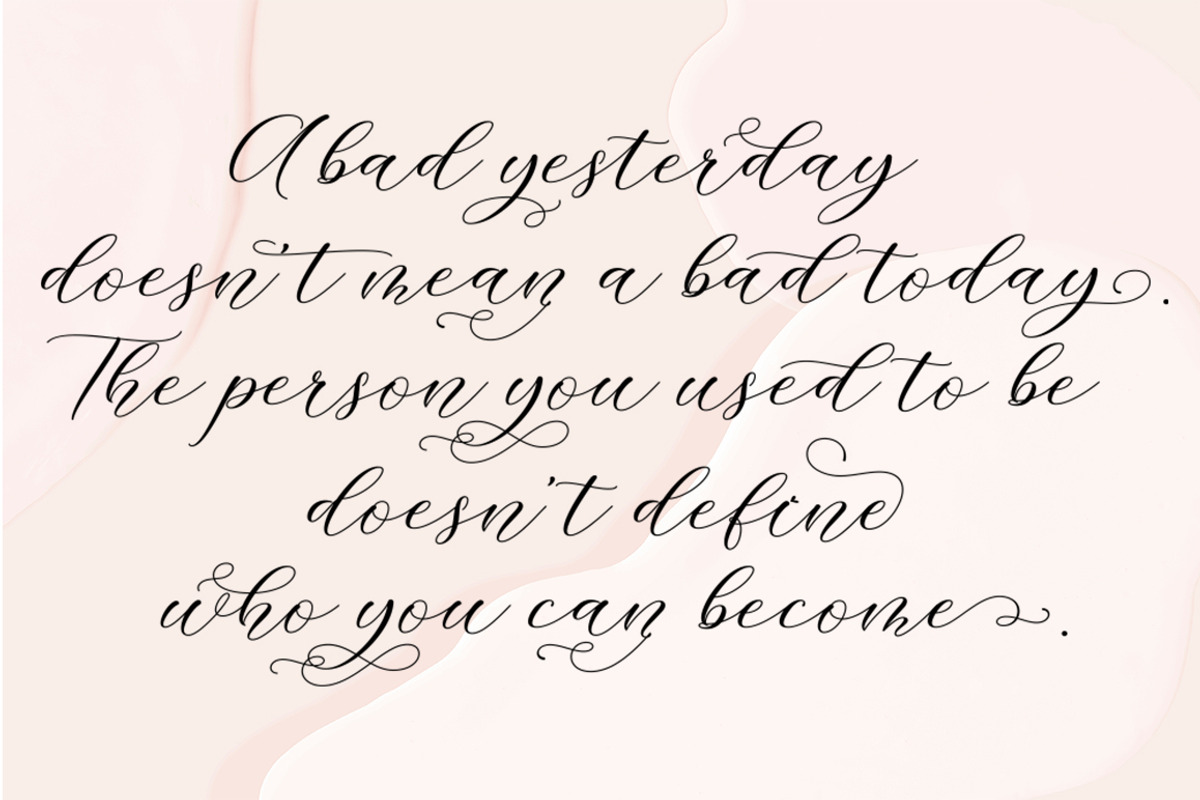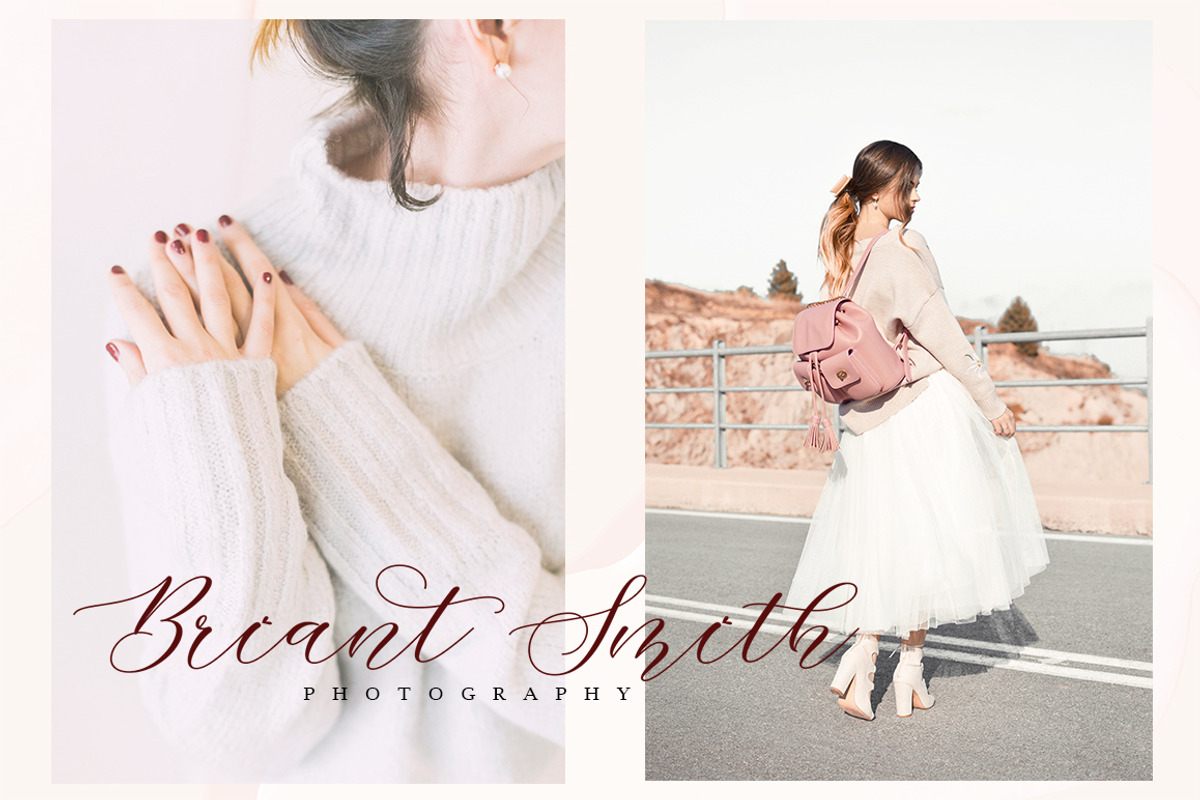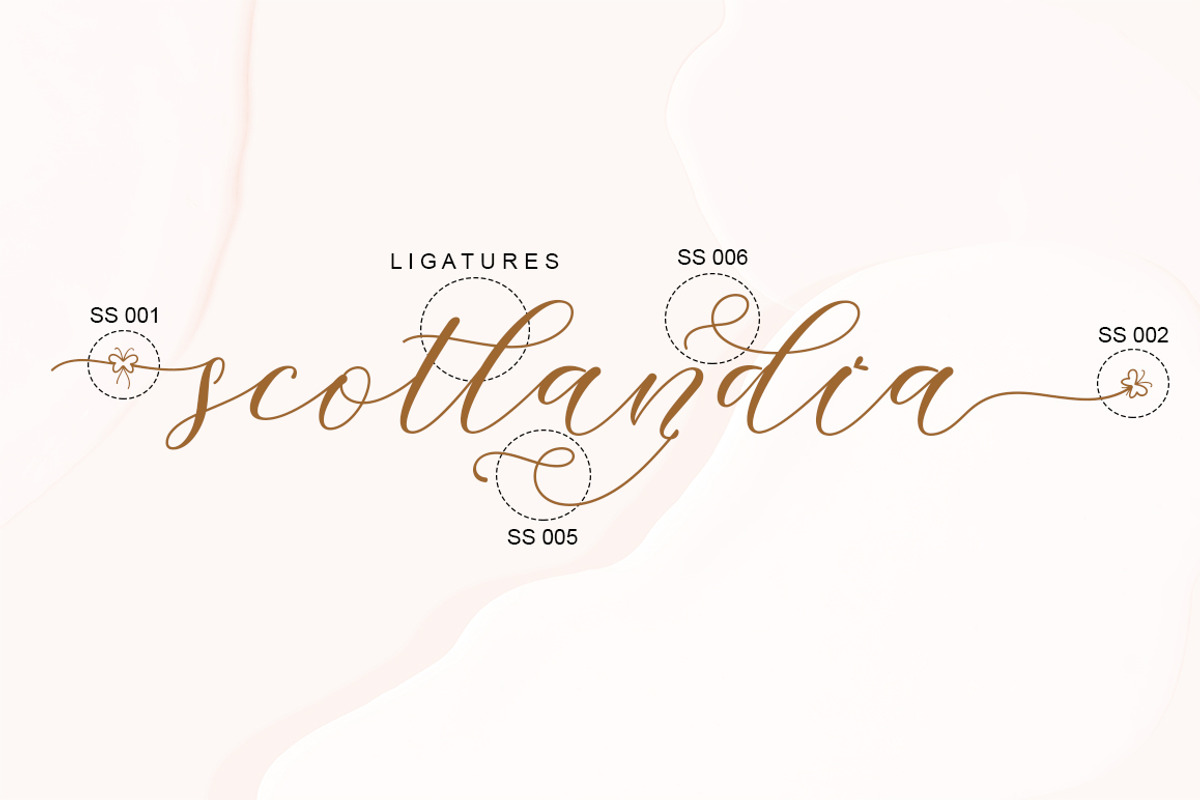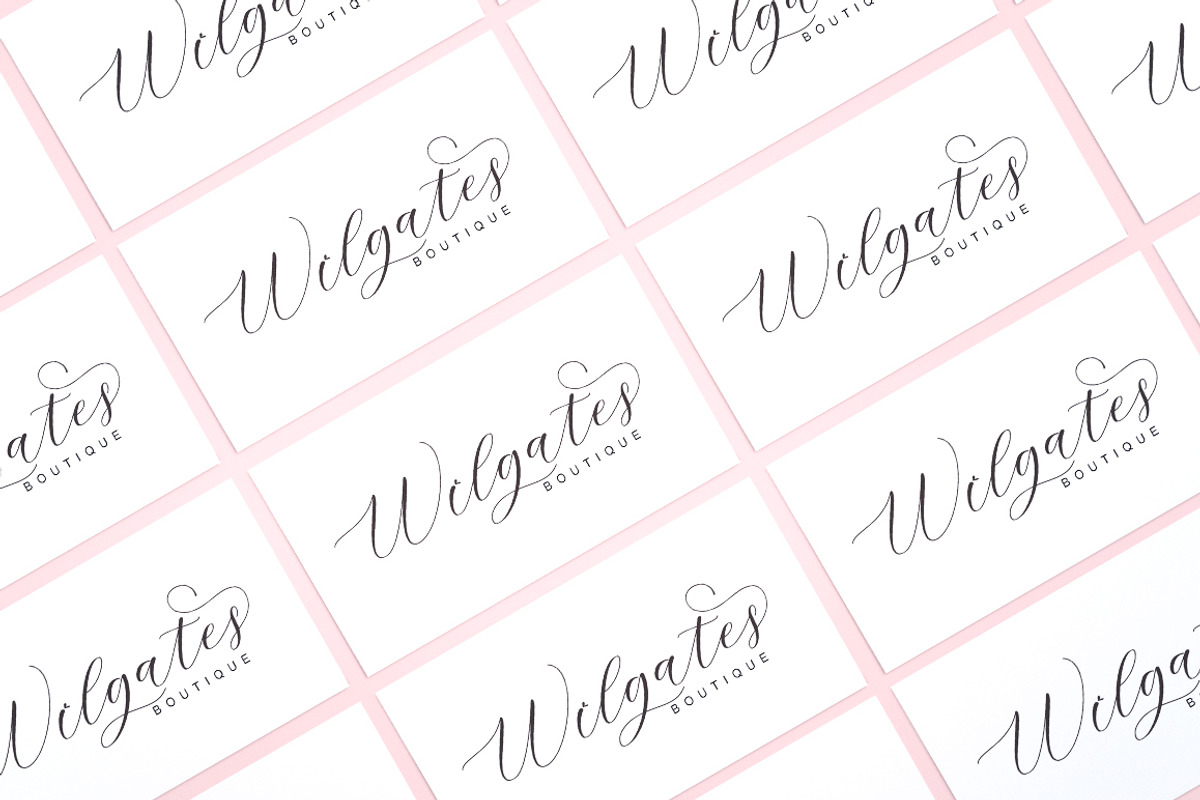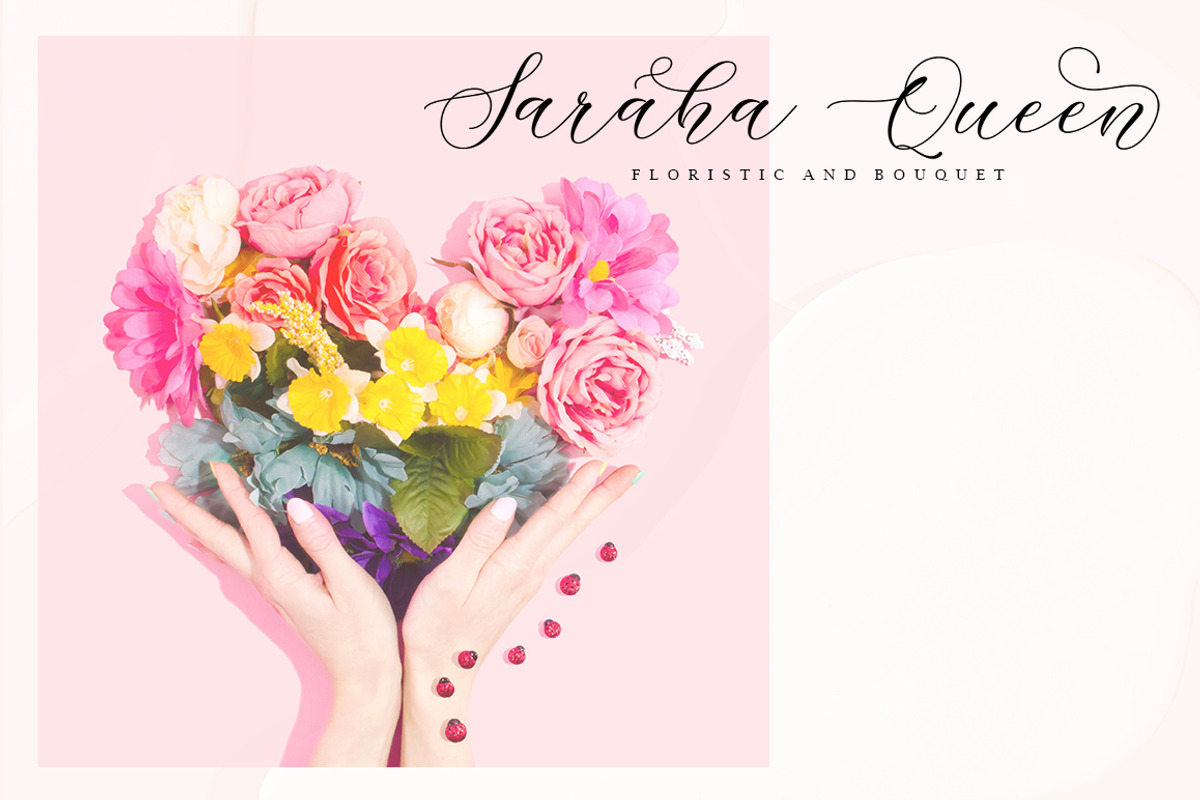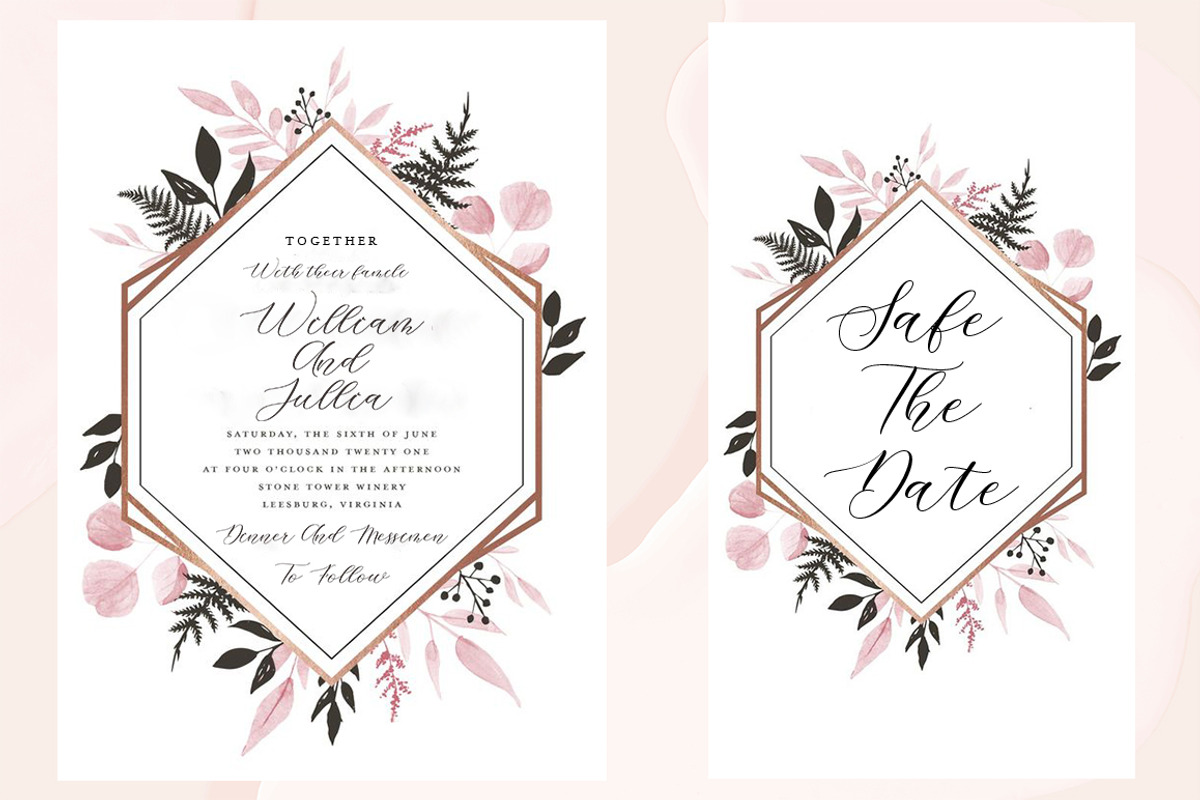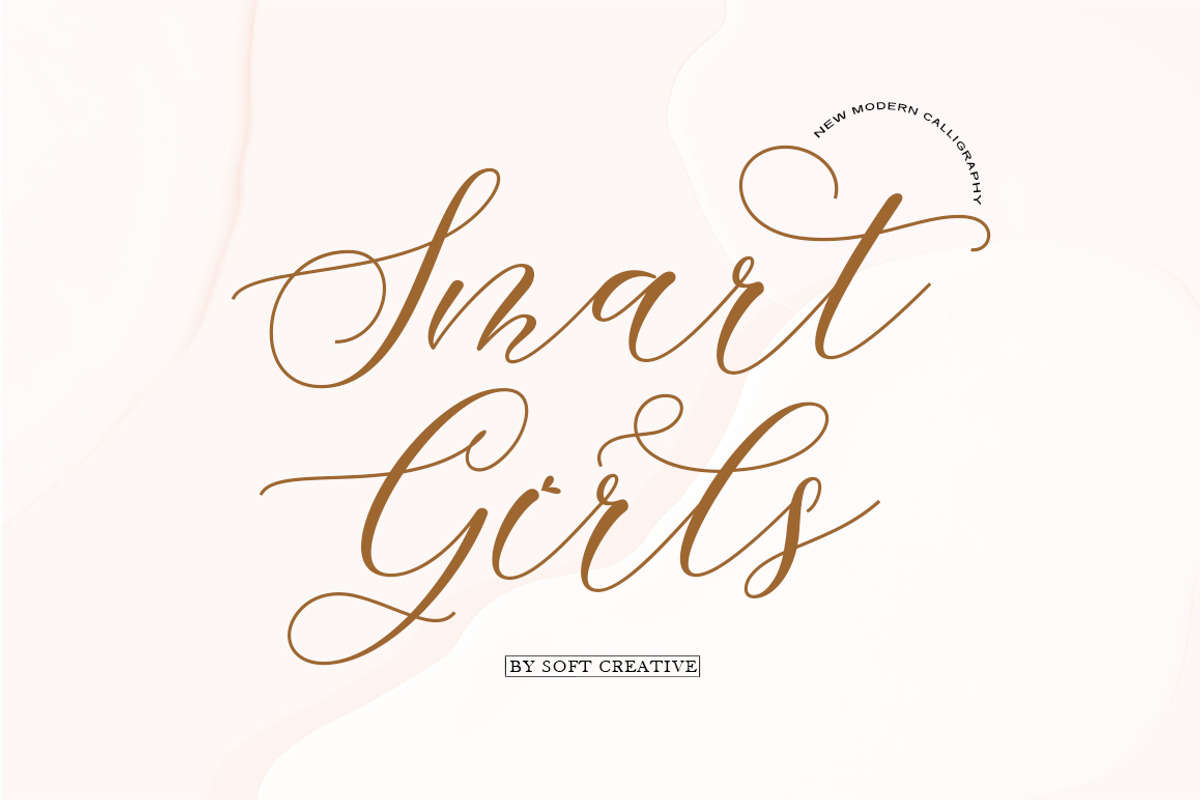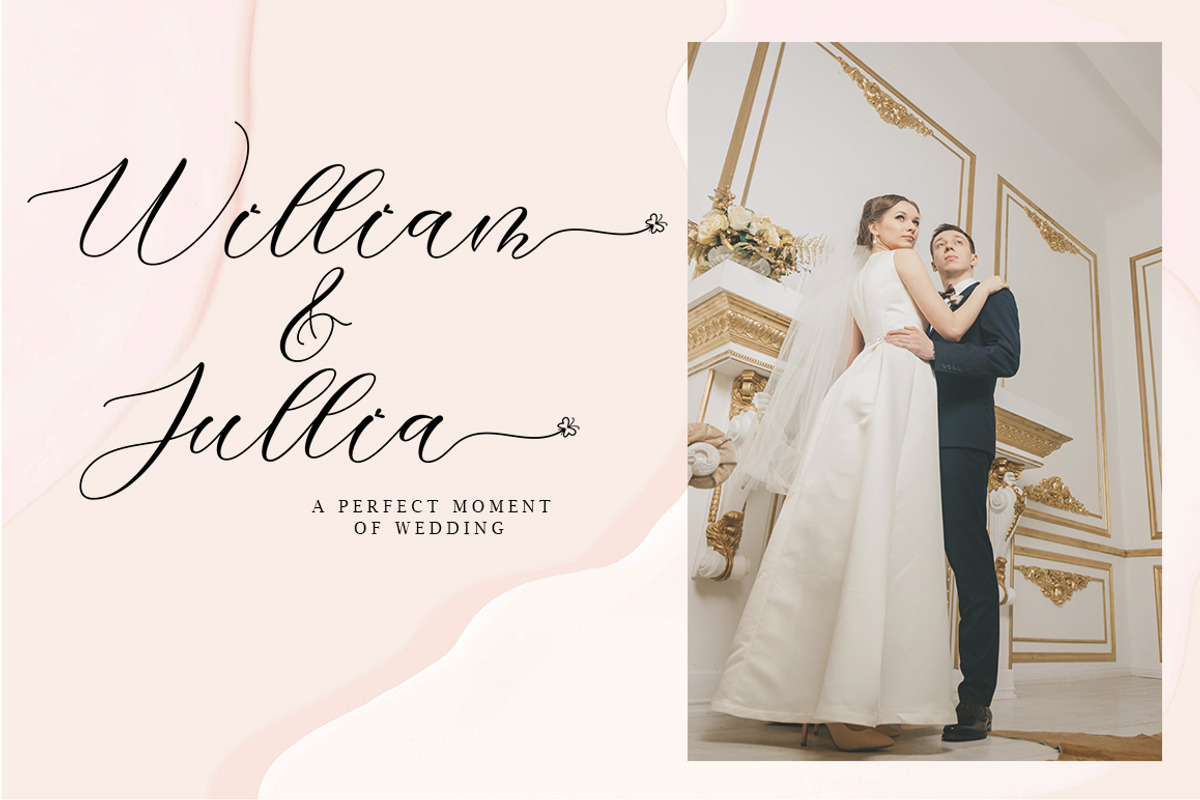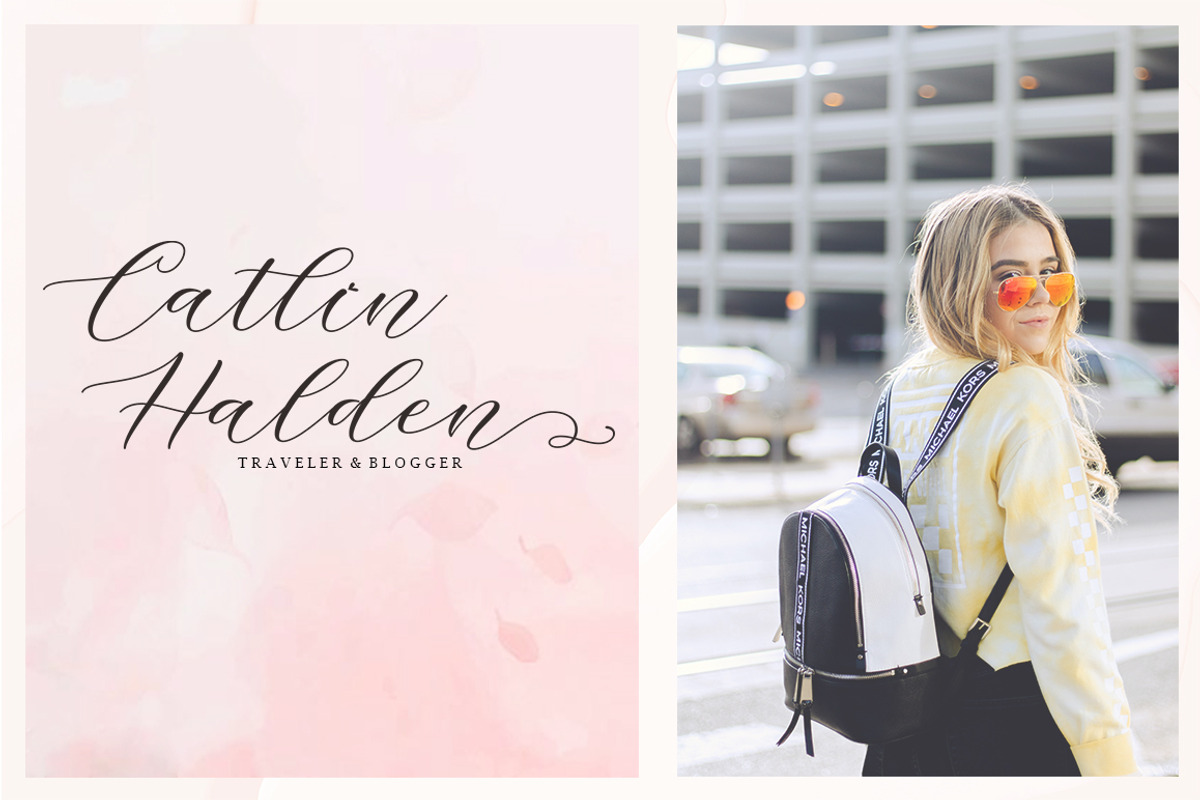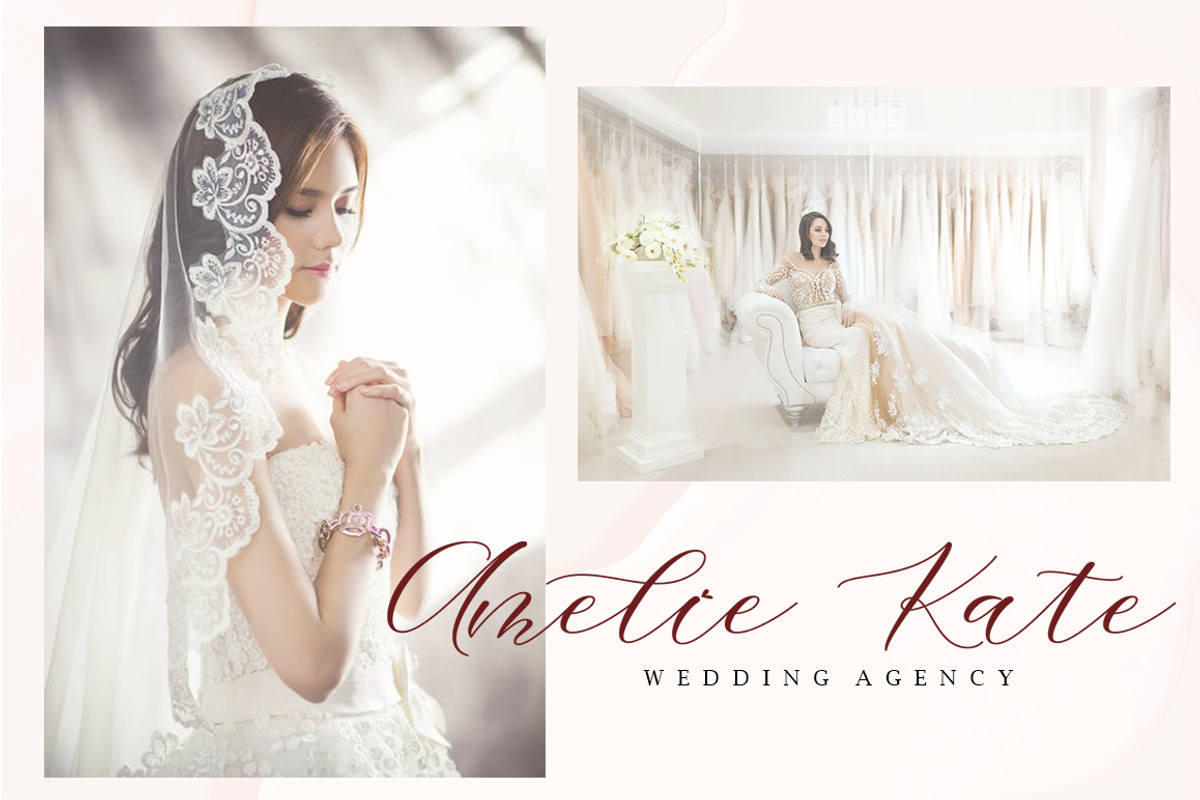
Smart Girls
Smart Girls Script is a new, modern script font with an irregular outline. Trendy and feminine style. Smart Girls look beautiful on wedding invitations, thank you cards, quotes, greeting cards, logos, business cards and more. Perfect for use in ink or watercolor. Includes initial and terminal letters, alternatives and multiple language support.